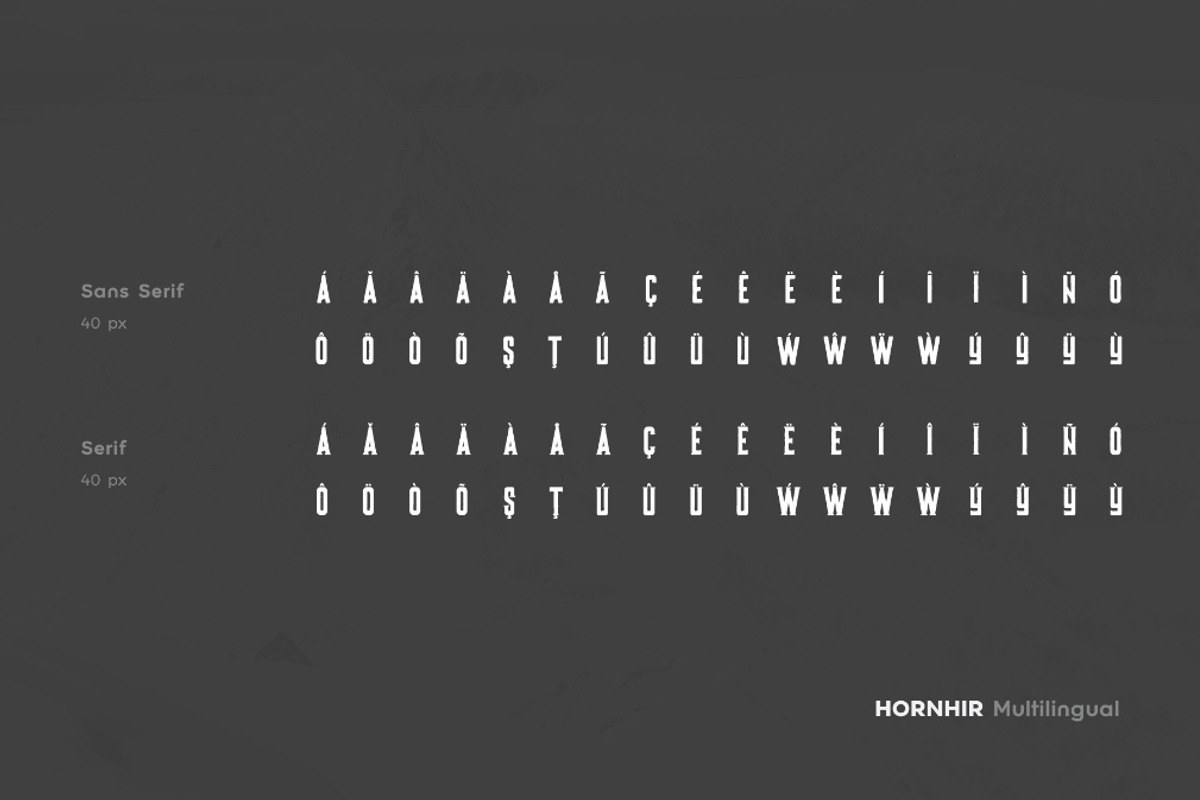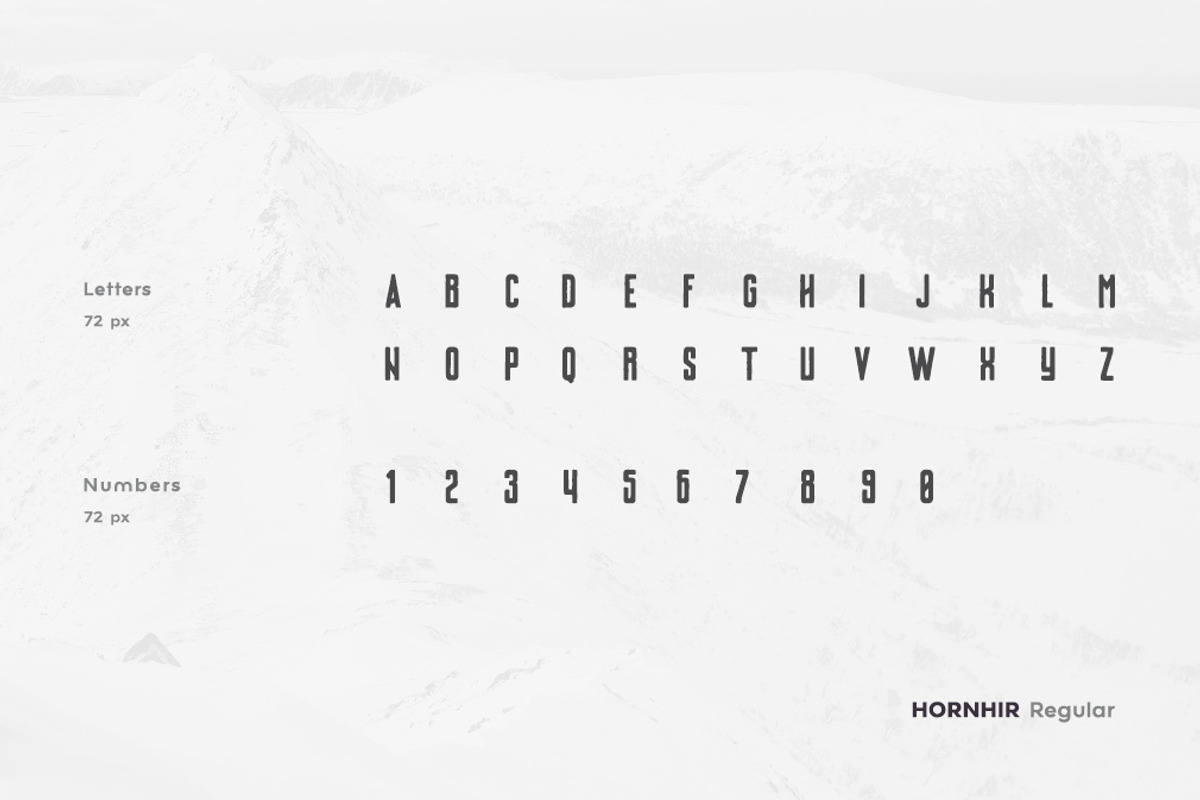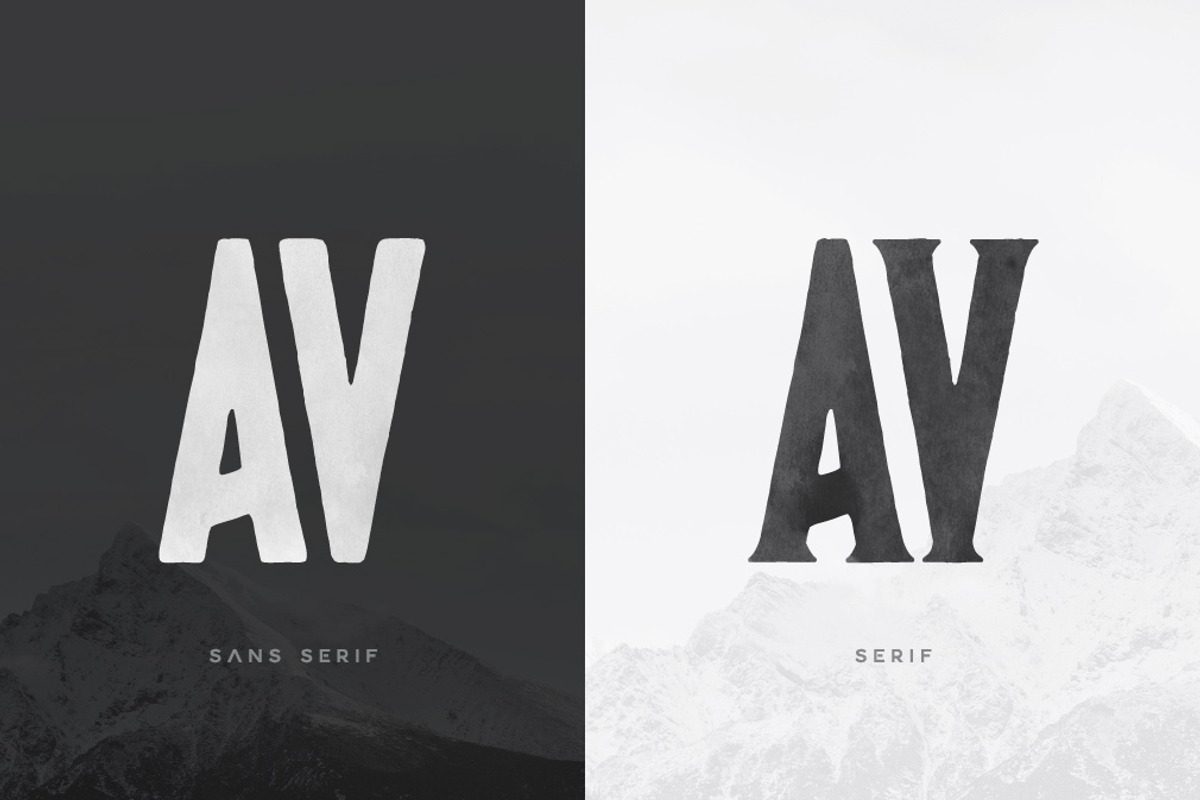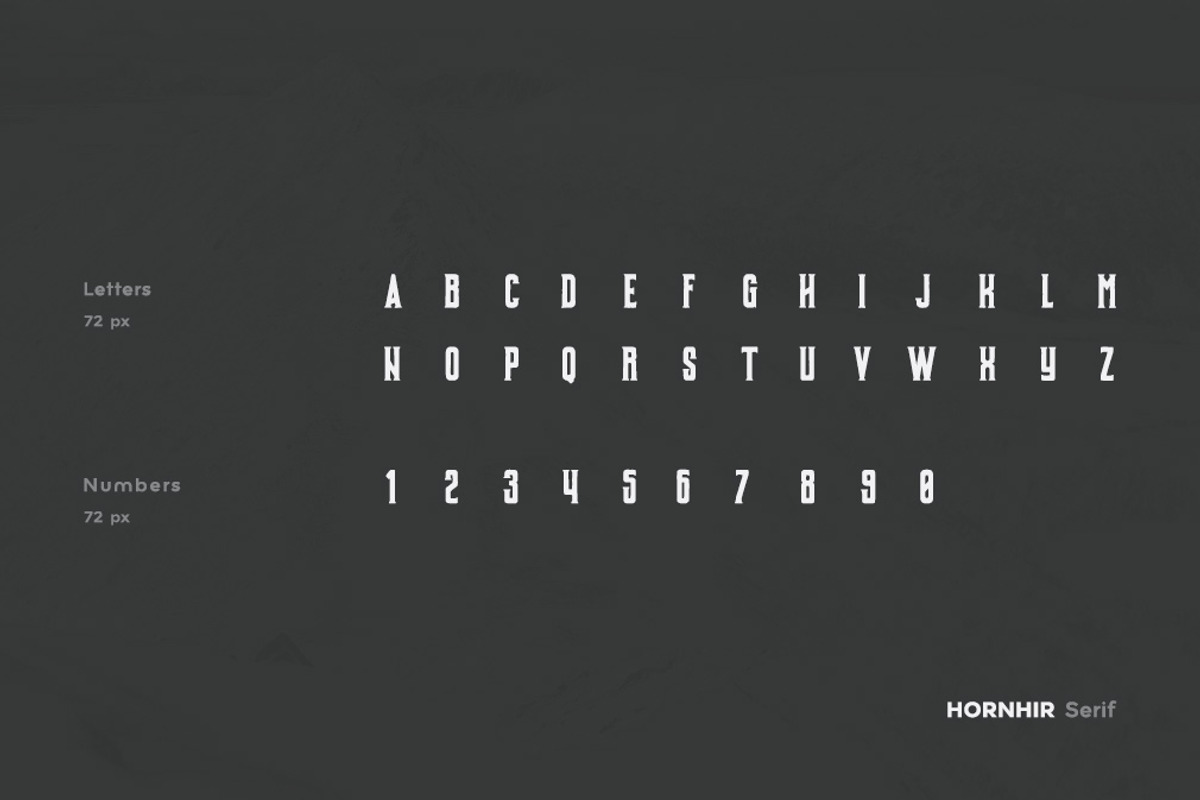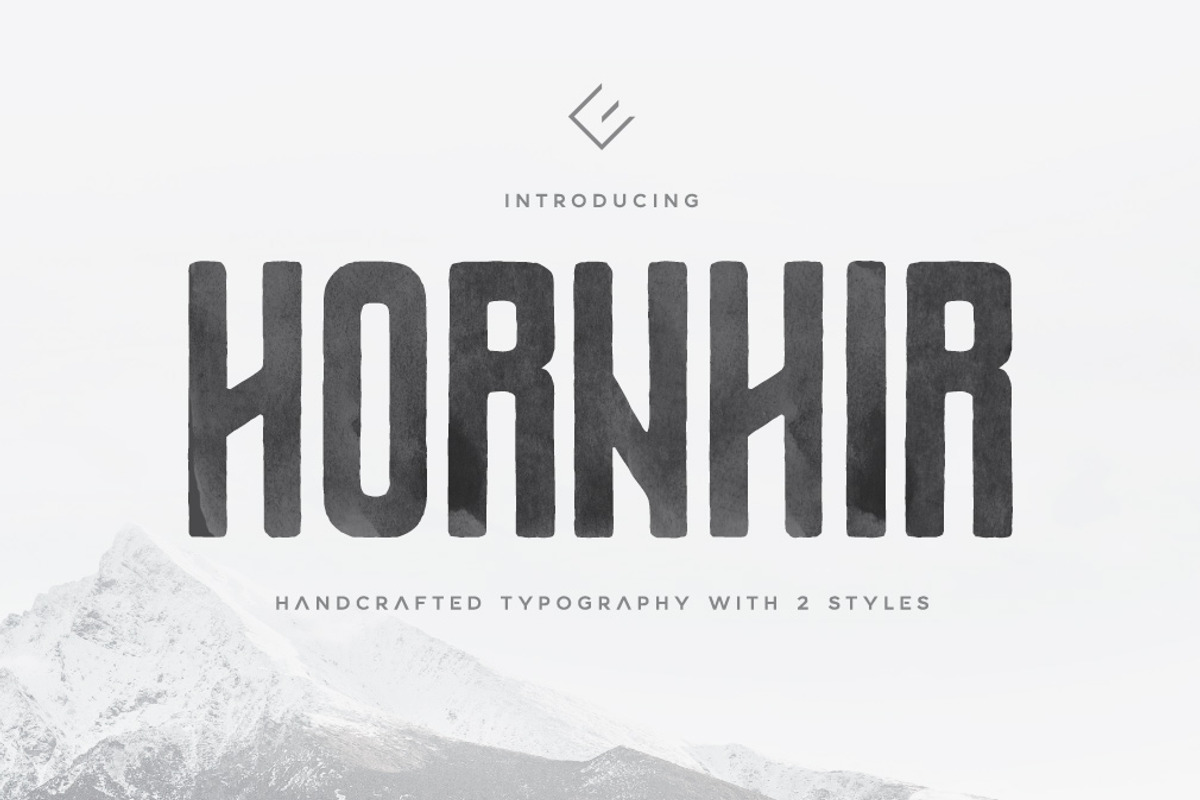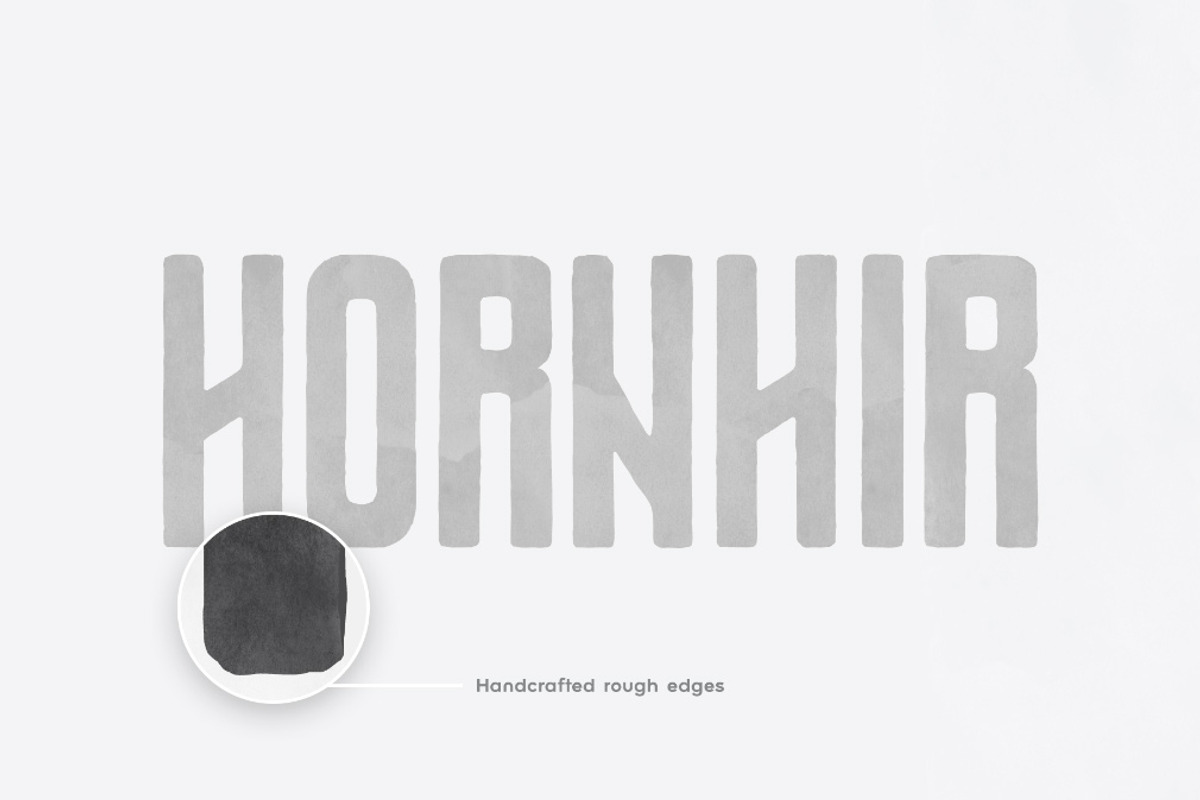
Hornhir Font Family (2 Fonts)
Hornhir Font Family (2 Fonts) by AlienValley is a font selected for branding, posters, packaging, typography.
- Both fonts are uppercase (all-caps)
- Punctuation & Symbols
- Natural, handcrafted edges
Why Hornhir Font Family (2 Fonts) is worth a look
Hornhir Font Family (2 Fonts) by AlienValley fits naturally into Branding, posters, packaging, typography.